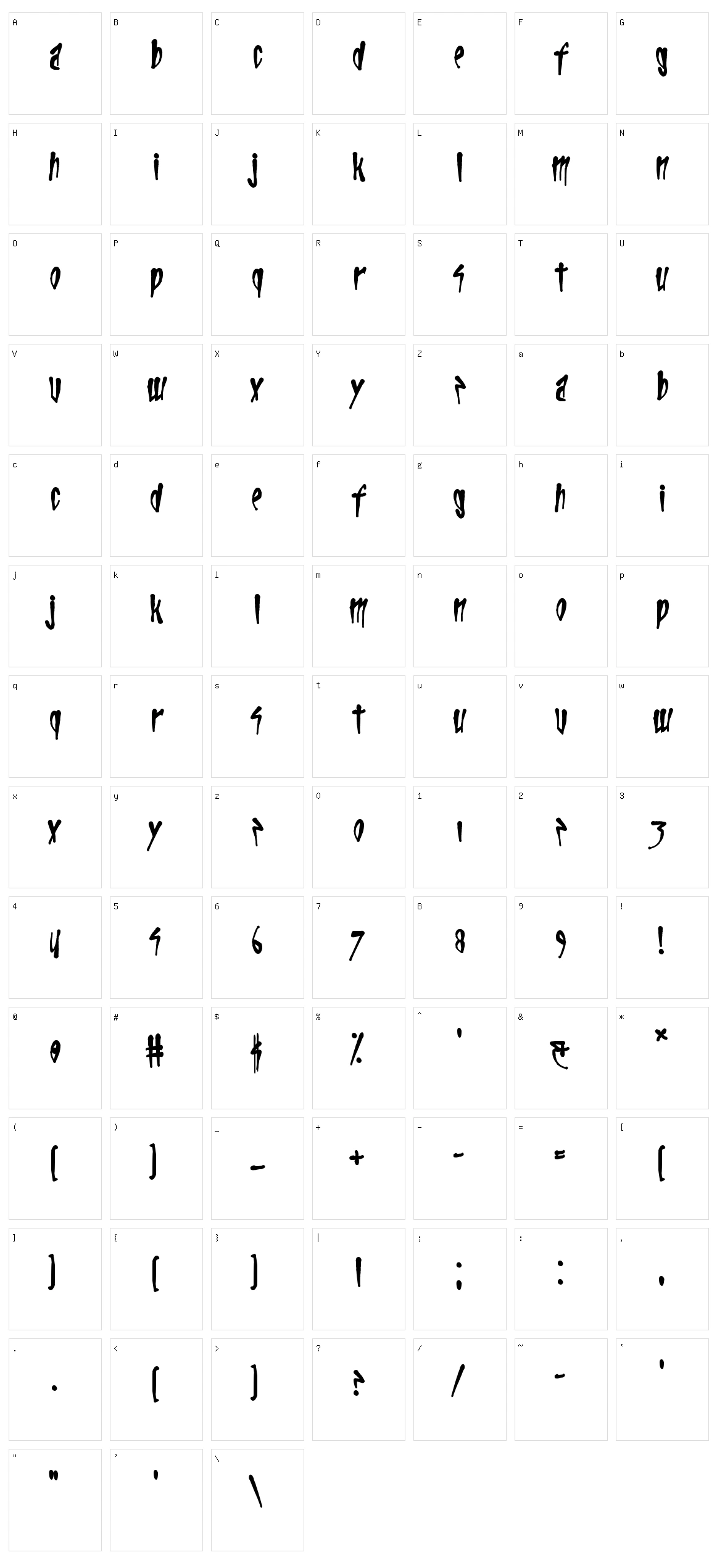
The free font Life In The Fast Lane is carefully designed by Chequered Ink, showcasing a thoughtful balance of creativity and usability and falls under the Script font style. When you download the ZIP file, it contains only 11.47 KB of font files, making it lightweight and quick to download. Please review the license details below to understand permitted usage and distribution rights. If license information is not available, we recommend using this font for personal projects only or contacting the author directly for commercial usage permissions.